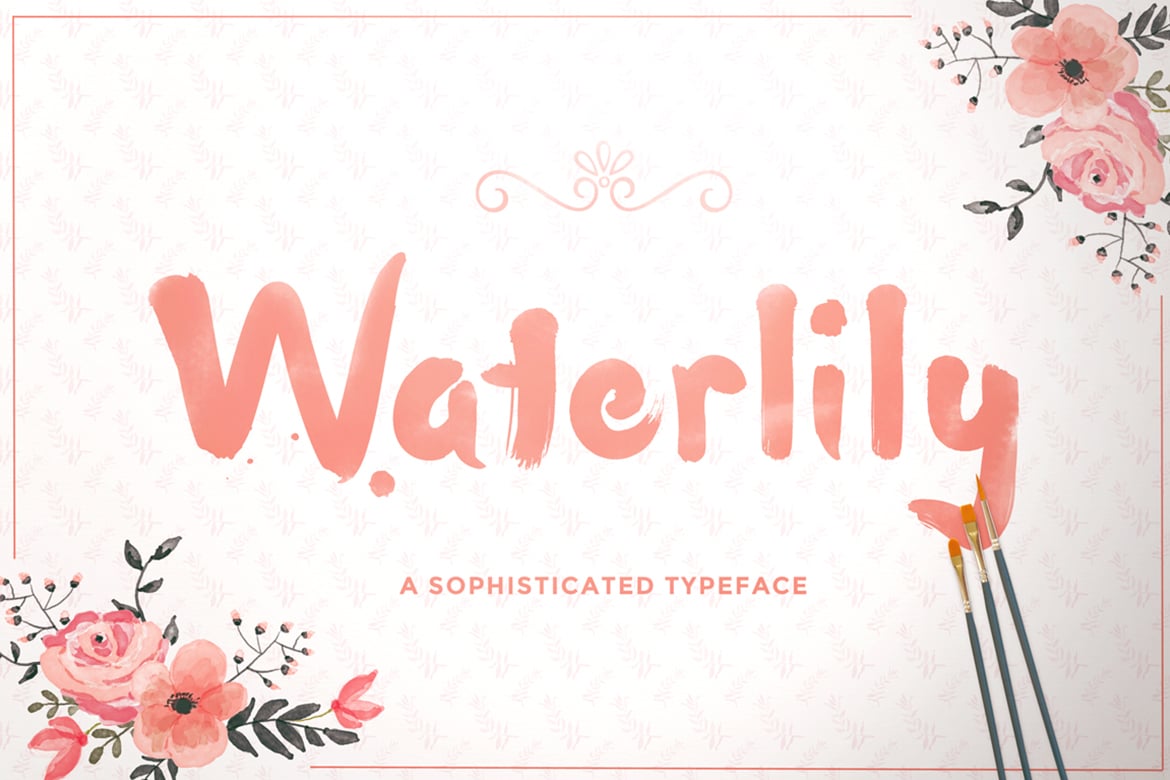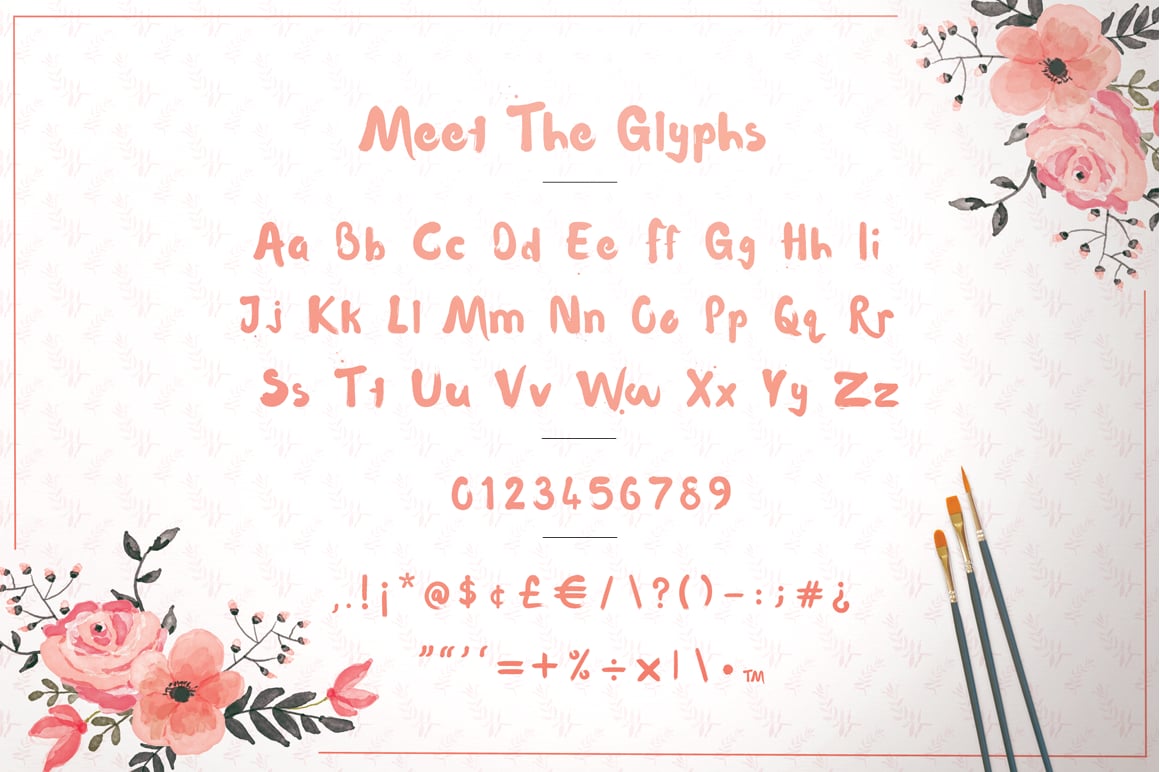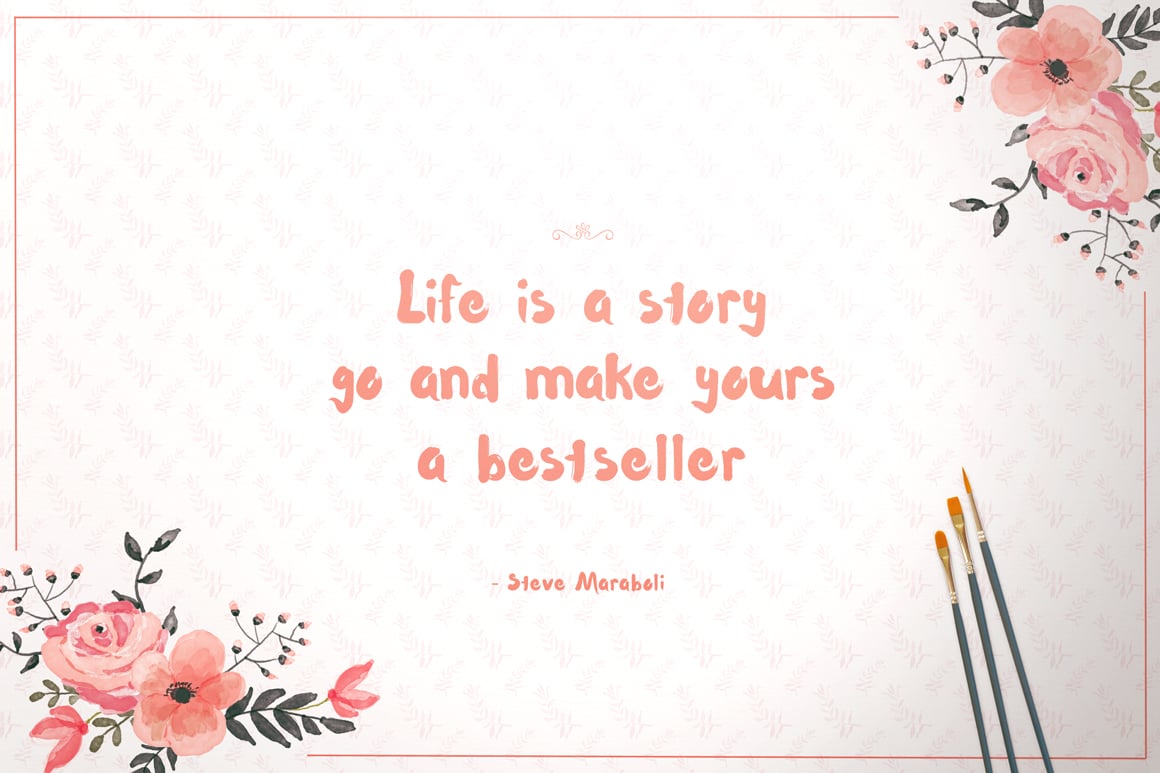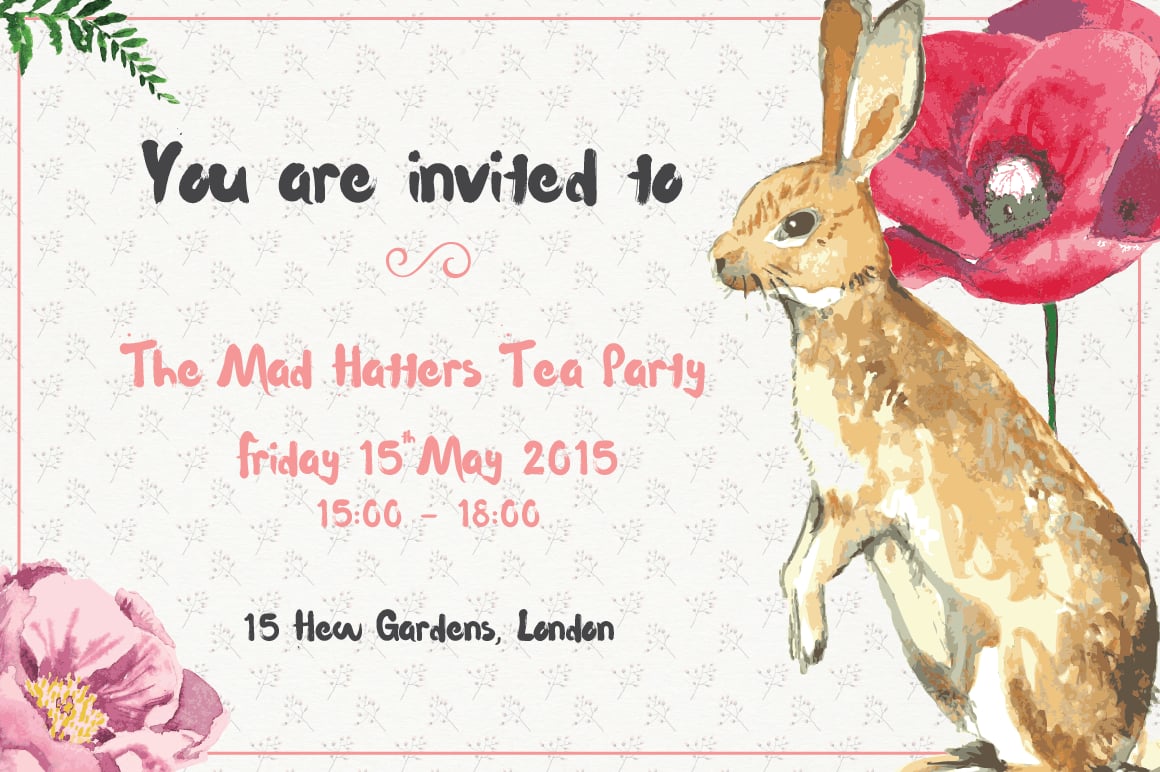
Waterlily Font
Waterlily is a new hand written font for 2015. Available for both personal and commercial use. No extended license is required. Download and use Waterlily for anything and everything.
Including over 80 different hand drawn characters for a range of languages and dialects.